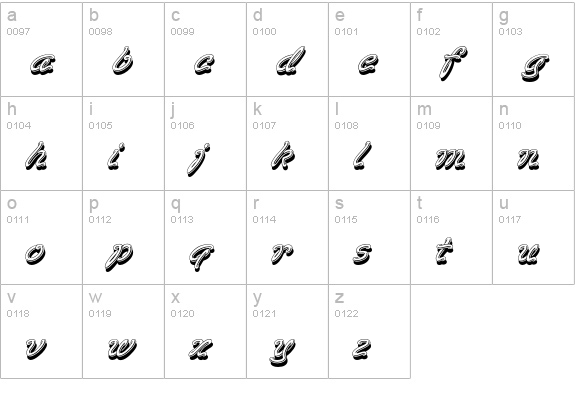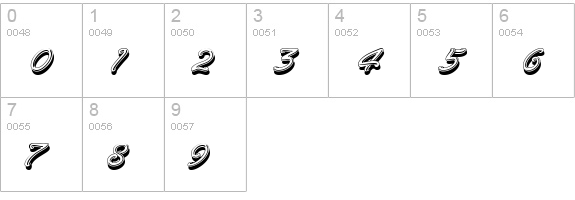
VegasEF Font Details
Introducing VegasEF, a mesmerizing and dynamic font that captures the essence of the bustling city of Las Vegas. This font is the perfect blend of elegance and vibrancy, making it an ideal choice for any project that seeks to evoke a sense of excitement and glamour. With its sleek and modern design, VegasEF is sure to make a lasting impression. Its sharp edges and bold strokes command attention, while its sophisticated curves add a touch of refinement. Whether used in headlines, logos, or body text, this font effortlessly elevates any design to new heights. What sets VegasEF apart is not just its stunning aesthetics, but also its availability. This font is freely available to download at FontsMarket.com, allowing designers and creatives to effortlessly access this powerful tool to bring their visions to life. With VegasEF, there are no limitations to your imagination. Embrace the spirit of Las Vegas and infuse your projects with the energy and excitement of this iconic city. Let VegasEF be your guide as you embark on a creative journey that leaves a lasting impression. Download this font today and unleash the limitless possibilities it offers. Welcome to VegasEF, where style and freedom come together in perfect harmony.